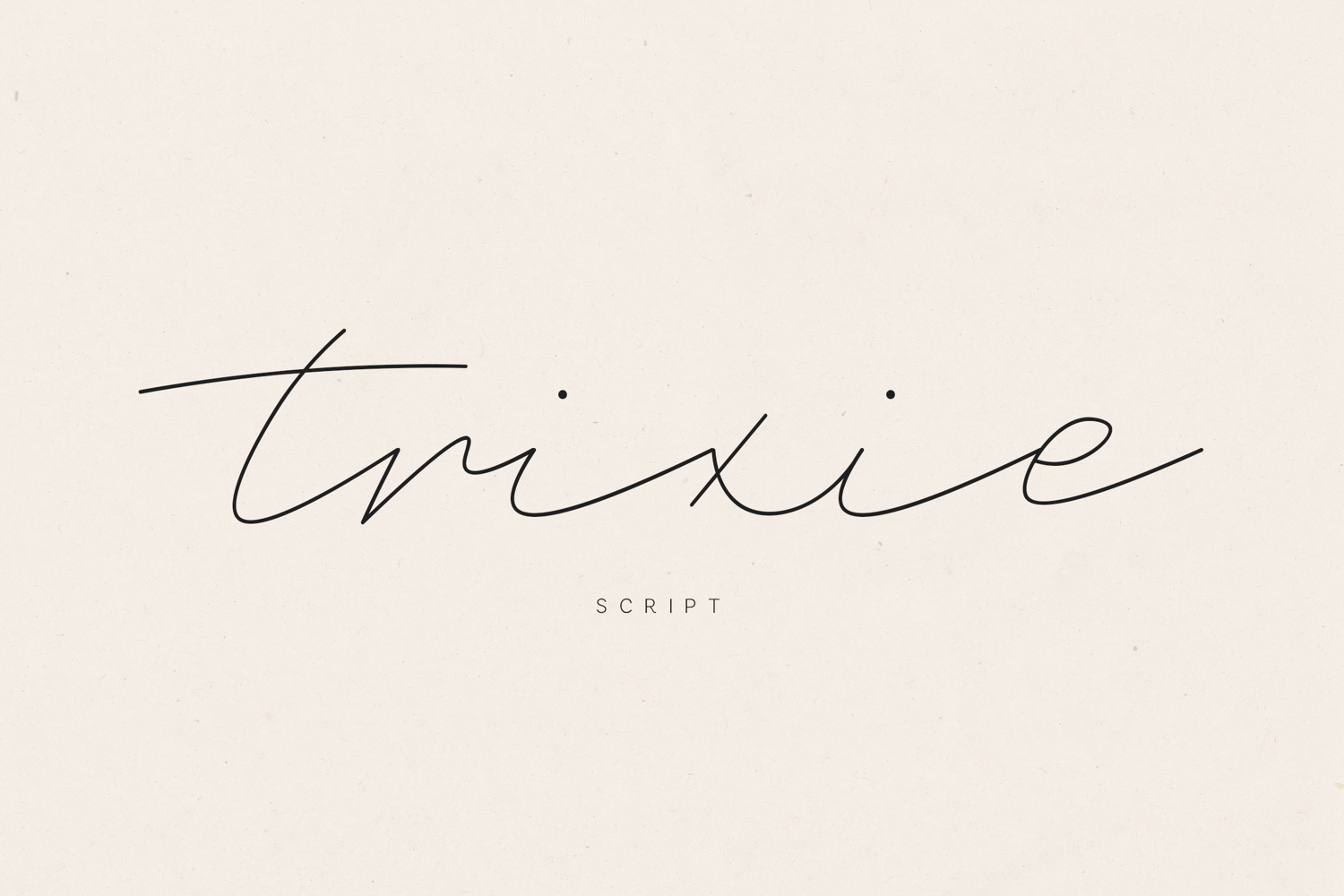
Trixie Signature Script Elegant Handwritten
Trixie is a refined signature-style script font designed to capture the beauty of natural handwriting. With its thin strokes, smooth curves, and effortless flow, it brings a sense of elegance and authenticity to any design.
Carefully crafted to feel modern, Trixie is perfect for creating stylish logos, branding, and delicate typography compositions. Its clean and minimal look makes it highly versatile across both digital and print projects.
Whether you’re designing for weddings, social media, or branding, Trixie adds a graceful and sophisticated touch.
✨ Perfect for• Signature logos
• Wedding invitations
• Branding & identity
• Social media content
• Packaging & labels
• Quotes & overlays
🔤 Features• Uppercase & lowercase
• Numbers & punctuation
• Natural handwriting flow
• Elegant thin strokes
• Smooth connections